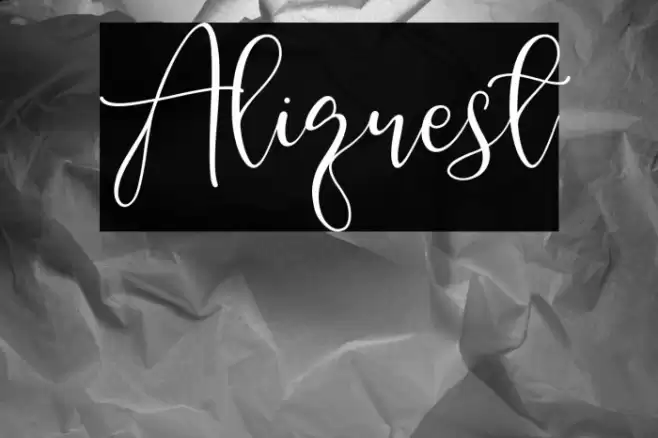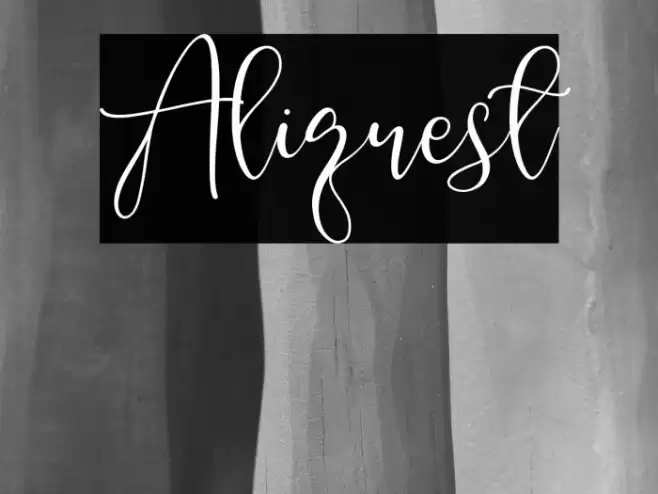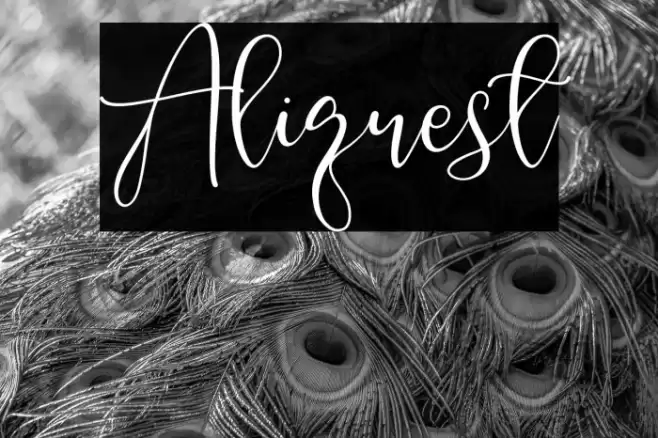
Aliquest Font
Aliquest Description
This font features an elegant and flowing script style, characterized by its intricate loops and swirls. The uppercase letters are particularly ornate, with elaborate curves that give a sense of movement and grace. The lowercase letters maintain a consistent fluidity, with some characters extending below the baseline, adding to the font's dynamic appearance. The overall design is reminiscent of traditional calligraphy, yet it maintains a modern touch with its clean lines and balanced proportions. This font is perfect for projects that require a touch of sophistication and elegance.
An elegant, flowing script font with intricate loops and swirls from Uncategorized fonts.
- Proposed Projects: Ideal for wedding invitations, elegant branding, greeting cards, and upscale packaging.
- Overall Style: Elegant, Modern
- Use Case: Logos, Invitations, Decorative text